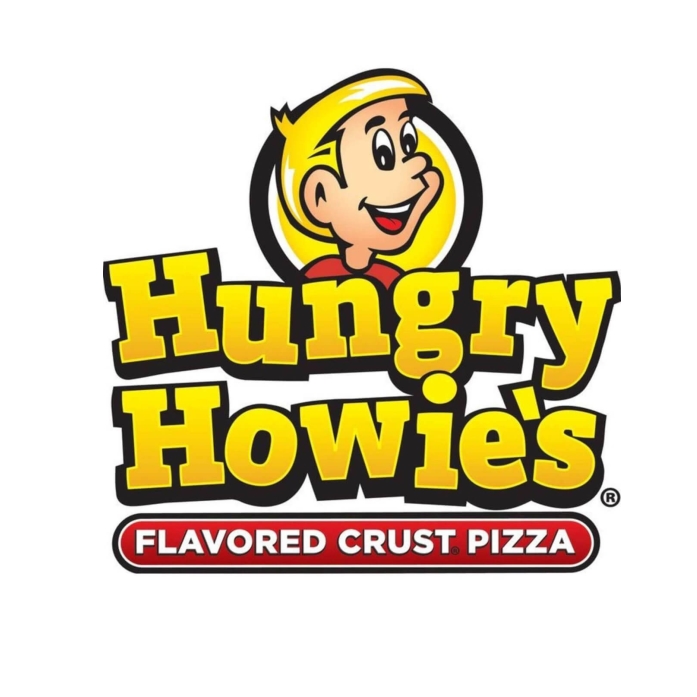
Hungry Howie's Font
Fonts in UseHungry Howie’s Pizza is a pizza chain known for its flavored crusts, with over 550 locations across the United States.
Xavier Dupré's Vista Slab Black is the heavy slab serif font featured in the pizza chain's logo, which is part of the Vista family. The accompanying text "Flavored Crust Pizza" is likely set in Hoefler & Co's Gotham Black.